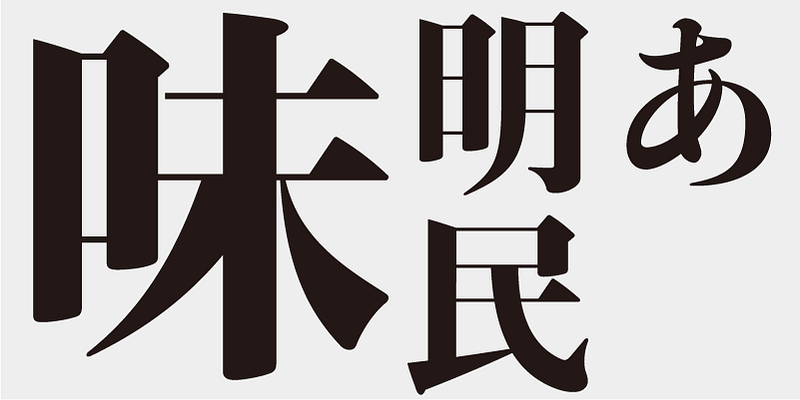
AB Ajimin Modern Min/EB Font Free Download is a sophisticated extra bold serif typeface that fuses traditional Japanese Mincho characteristics with a sleek, modern edge. Designed with strong vertical contrast, sharp serifs, and graceful curves, AB Ajimin Modern Min/EB is ideal for editorial headlines, luxury branding, book covers, posters, and any project that needs to convey elegance, strength, and cultural depth.
The EB (Extra Bold) weight makes it especially impactful in titles and large-format designs, where its refined presence can shine. It supports both Japanese and Latin scripts, making it a reliable choice for bilingual and international design projects that require typographic harmony and high legibility.